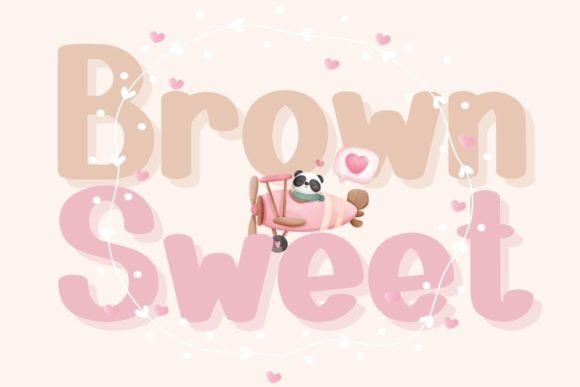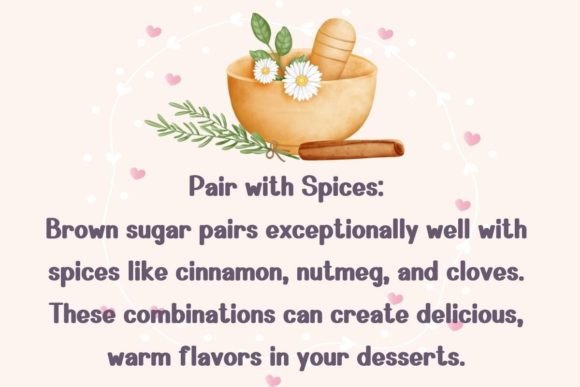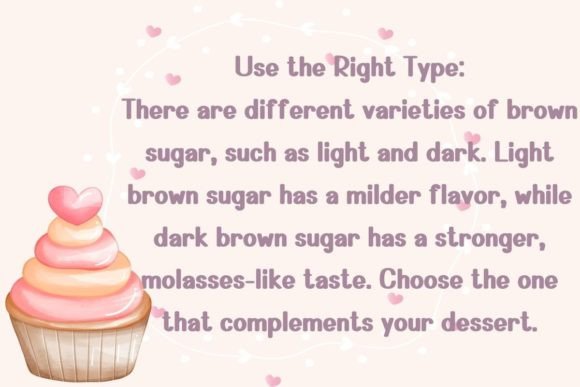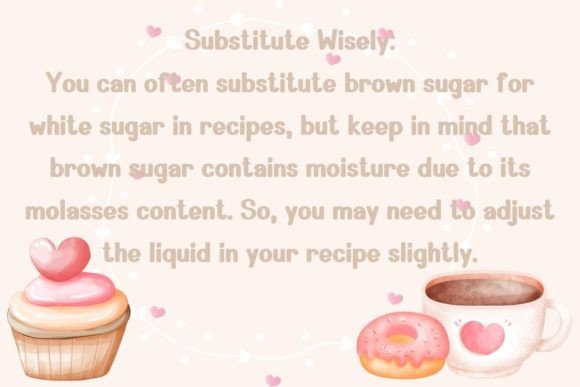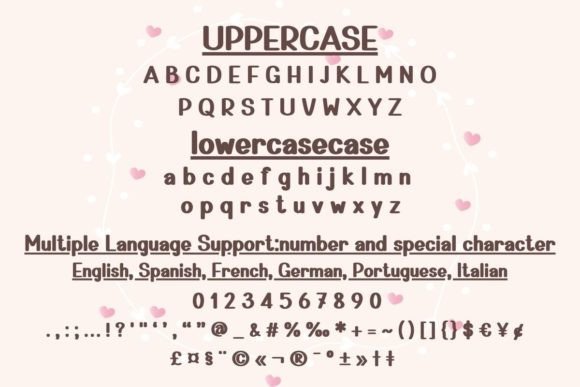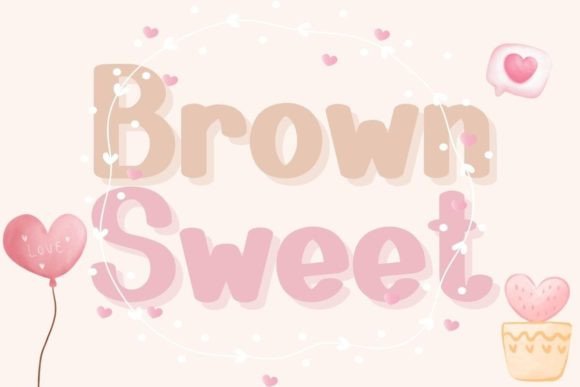
The Sweet Spot: Discovering the Charm of Brown Sweet Font
I’ll never forget the time I was working on a branding project for a new bakery, and I was struggling to find the perfect font to capture the warmth and coziness of their brand. The client wanted something that would make their customers feel like they were walking into a sweet shop, not just a store. That’s when I stumbled upon Brown Sweet font, and it was love at first sight! 💕
The irresistible allure of Brown Sweet font is undeniable. Its warm, inviting curves and timeless charm make it the perfect addition to any design project. Whether you’re crafting logos, invitations, or eye-catching headlines, Brown Sweet adds a delightful touch of sweetness to your creations.
- ✨ The unique, hand-drawn feel that sets it apart from other fonts
- ✅ The perfect balance of elegance and playfulness
- 💫 The range of OpenType features, including glyphs and stylistic alternates
- 🎨 The versatility to work well in both digital and print designs
While Brown Sweet font is a stunning addition to any design, there are a few things to keep in mind:
- ⚠️ Some of the more intricate details can get lost at smaller font sizes
- 🤔 It may not be the best choice for body text, as it’s more suited for headlines and titles
The Story Behind Brown Sweet Font
The story behind Brown Sweet font is one of passion and creativity. Designed with love and care, this font was crafted to bring a touch of warmth and personality to your designs. The designer, inspired by the beauty of handwritten typography, set out to create a font that would capture the essence of sweetness and charm.
Q: What type of designs is Brown Sweet font best suited for?
A: Brown Sweet font is perfect for designs that require a touch of elegance and playfulness, such as logos, invitations, headlines, and titles.
Q: Is Brown Sweet font suitable for body text?
A: While Brown Sweet font is beautiful, it’s not the best choice for body text. It’s more suited for headlines, titles, and short paragraphs.